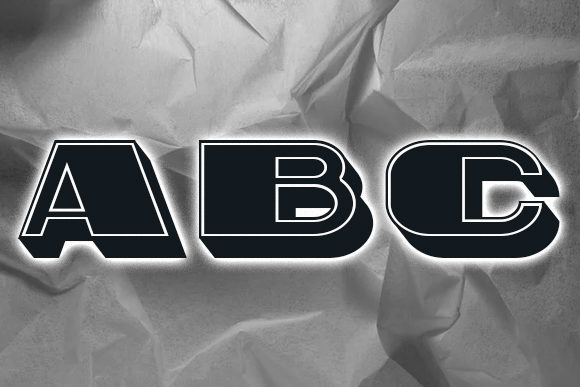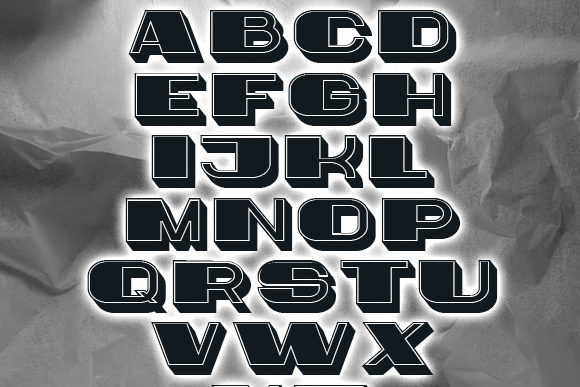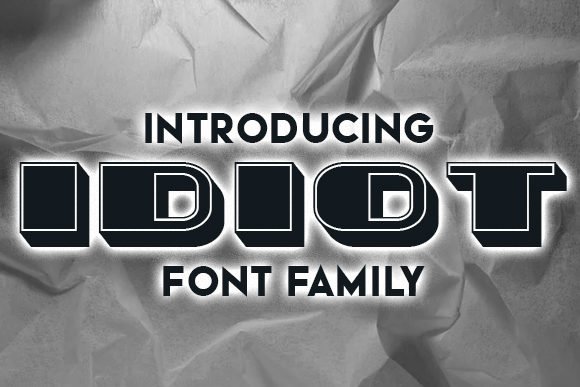
Introduction to Idiot Font
Idiot is an awesome and bold display font that will look stunning on any poster, flyer, or print.
Key Features of Idiot Font